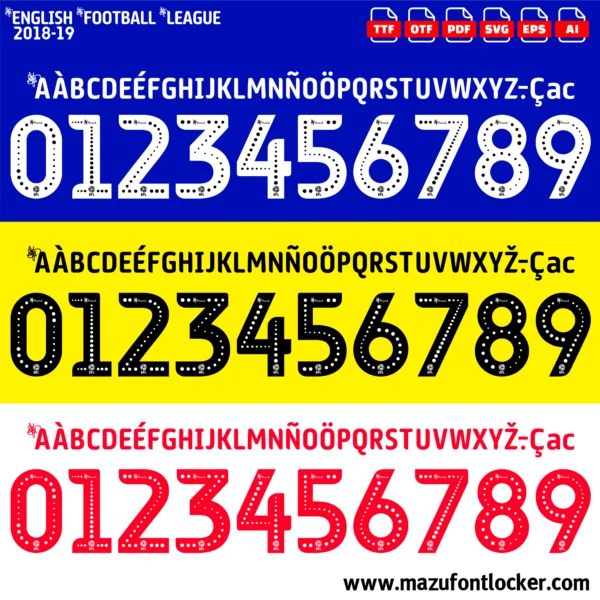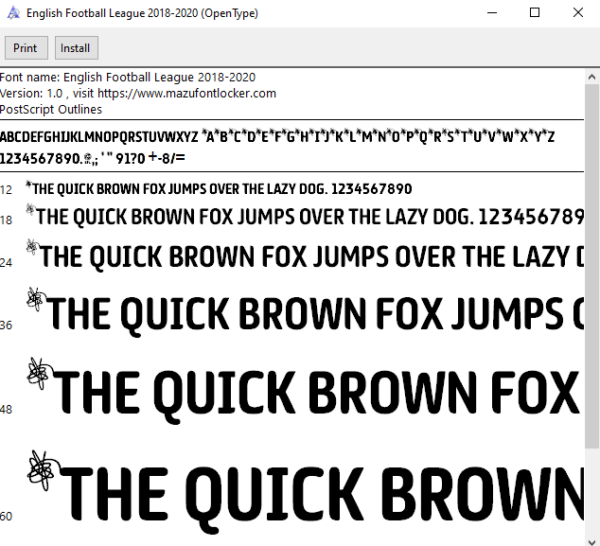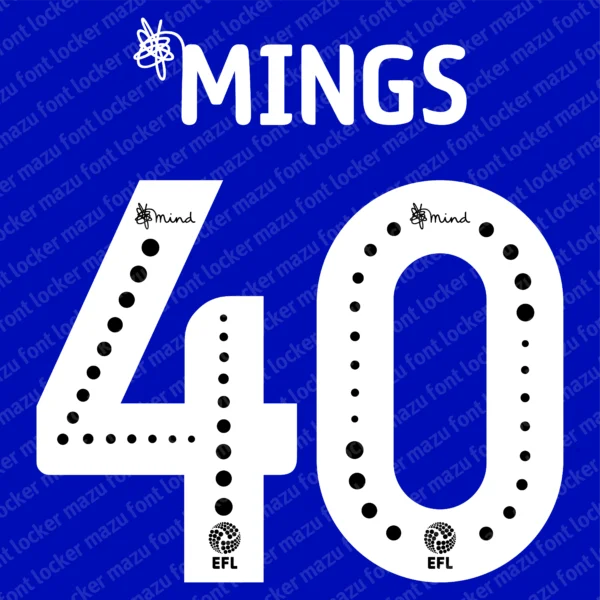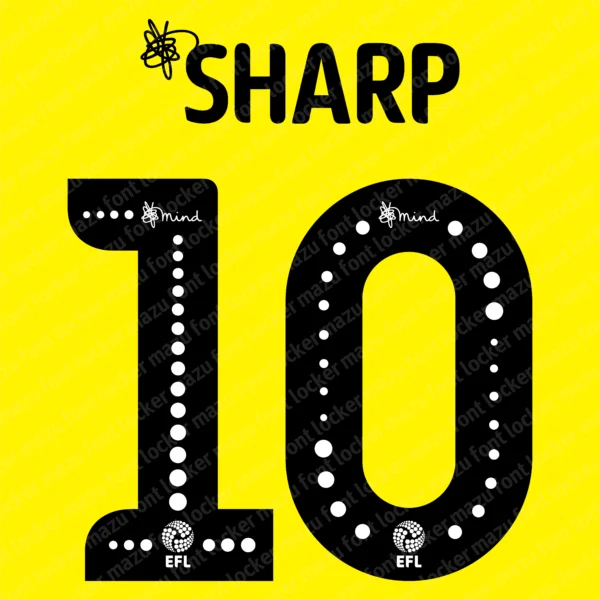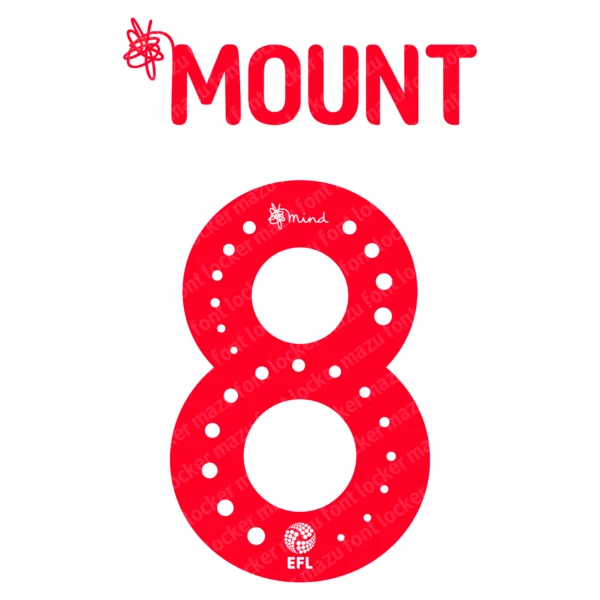
English Football League 2018-2020 Font Vector – Epic Championship Masterpiece
This font captures the commanding, blood-and-thunder, lightning-strike, and precision-forged lettering that perfectly embodies the English Football League’s iconic identity, proud English heritage, legendary red-and-white intensity, working-class warrior spirit, and unstoppable lower-league power — delivering unmatched authenticity, premium quality, explosive energy, and elite Championship & League intensity for professional jersey mockups, dynamic football graphics, premium sports branding, passionate fan creations, and high-end design projects.
English Football League 2018-2020 Font Vector – Authentic Championship Red & White Typeface
The English Football League 2018-2020 Font Vector is a premium typeface that accurately recreates the distinctive match lettering associated with the English Football League during the 2018-2020 seasons. This high-quality vector font kit captures the bold, clean, and instantly recognizable typography that perfectly complements the competitive identity of the EFL Championship, League One, and League Two.
This font stands out thanks to its precise vector construction and authentic league-inspired styling. Every letter and numeral has been meticulously recreated to match the distinctive football lettering aesthetic associated with the English Football League during the 2018-2020 seasons and its domestic campaigns.
The lettering featured in the English Football League 2018-2020 Font Vector combines clean geometric lines with bold modern proportions. The result is a premium and highly readable typeface that reflects the proud football heritage of the English Football League, its competitive spirit, and the passionate fanbases across Championship, League One, and League Two clubs.
• Complete uppercase A–Z alphabet and numbers 0–9 in authentic English Football League 2018-2020 inspired style
• Special EFL badge glyph – Press the “:” (Colon) key to insert the league badge
Wearing their traditional club colours, EFL teams continued to represent proud football traditions built on passion, community spirit, and strong connections with supporters across England. The English Football League 2018-2020 Font Vector is inspired by the distinctive football typography and visual identity associated with this period, making it an excellent choice for designers creating custom jersey concepts, football posters, squad graphics, matchday artwork, and fan-made projects. For official league information, news, fixtures, and results, visit the official English Football League website.
The English Football League 2018-2020 Font Vector is an independently designed typeface package inspired by the official shirt lettering and visual identity associated with the English Football League during the 2018-2020 football seasons. It has been carefully recreated for football enthusiasts, graphic designers, collectors, jersey creators, and fans producing custom football concepts, digital artwork, and fan-made projects. Please note that this is a fan-made design resource and is not an official product of the English Football League, the Football Association, UEFA, or any associated organization.